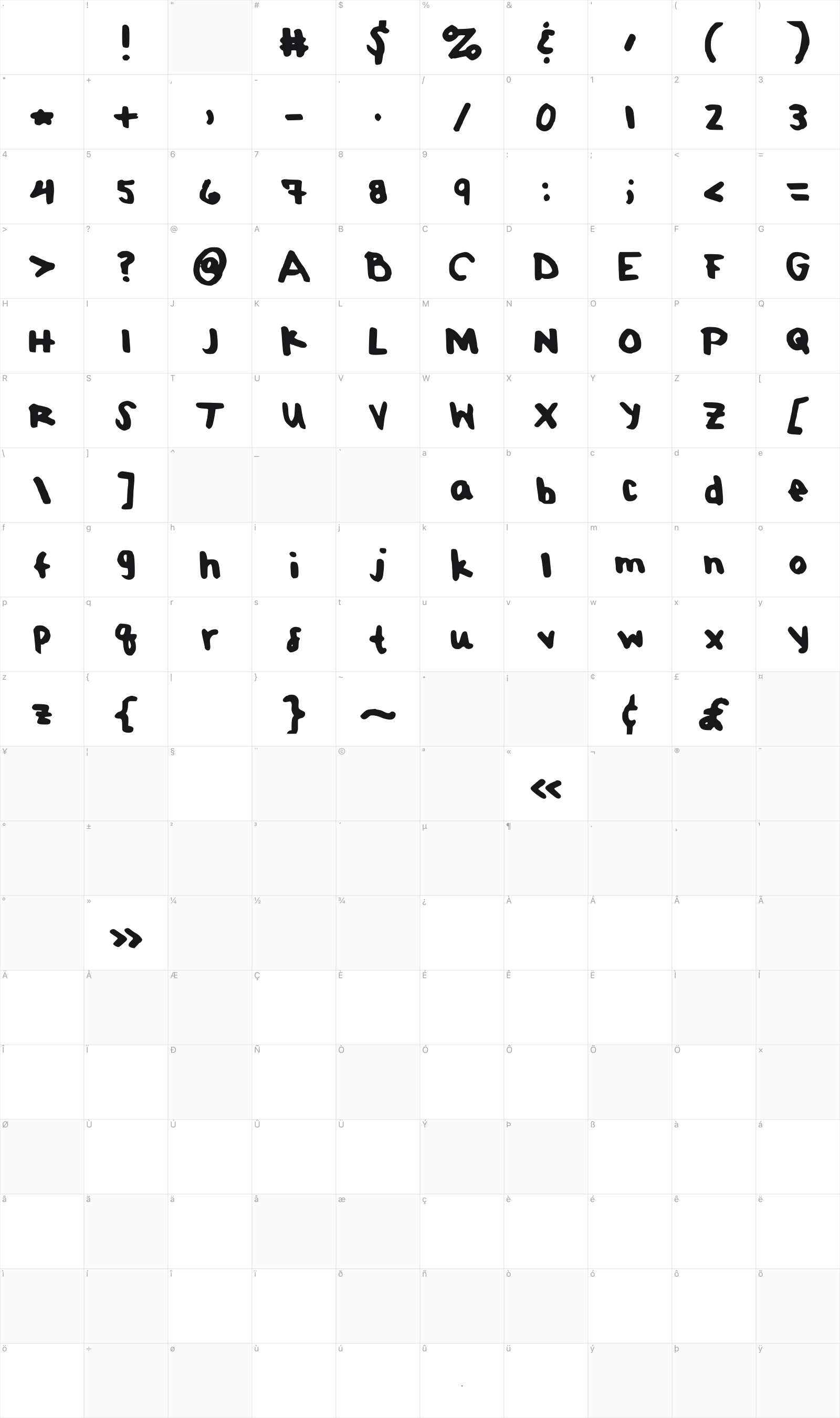
PomLimeade
by Singlo Harley
PomLimeade is a thick, rounded handwritten face from Singlo Harley that feels like someone grabbed a chunky marker and started lettering with real enthusiasm. The bold strokes and slightly quirky letterforms give it a playful, casual energy without drifting into childish territory. Best for headlines, packaging, and branding where you want something that reads as warm, approachable, and a little offbeat.